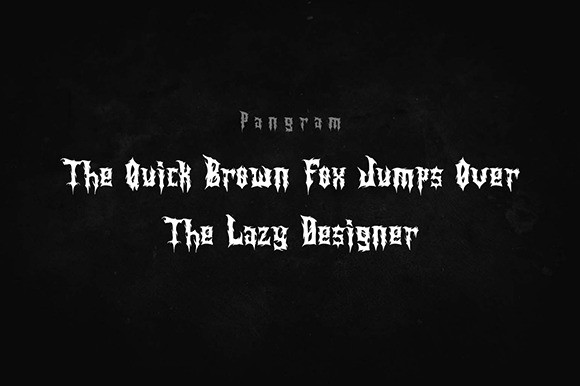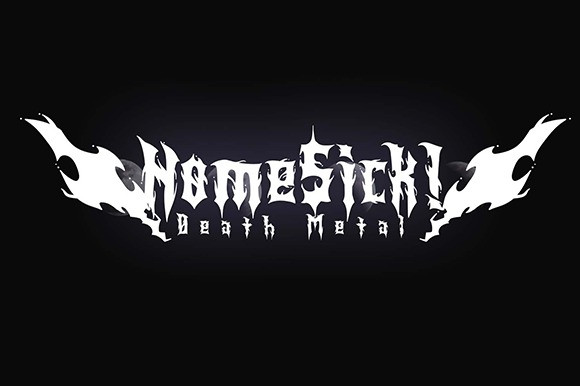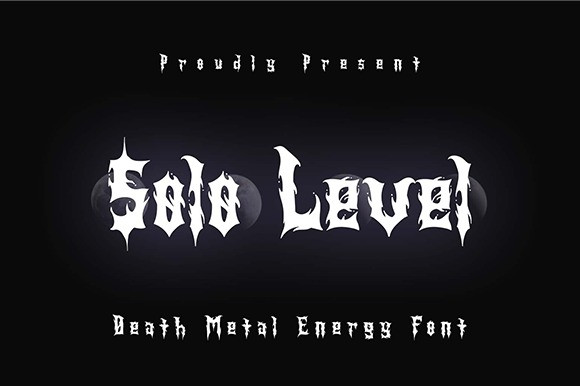
Solo Level Font
Solo Level Font is a cool and spooky decorative font. This font is suitable for designs such as t-shirts, sportswear, logos, advertisements, clothing, and more.